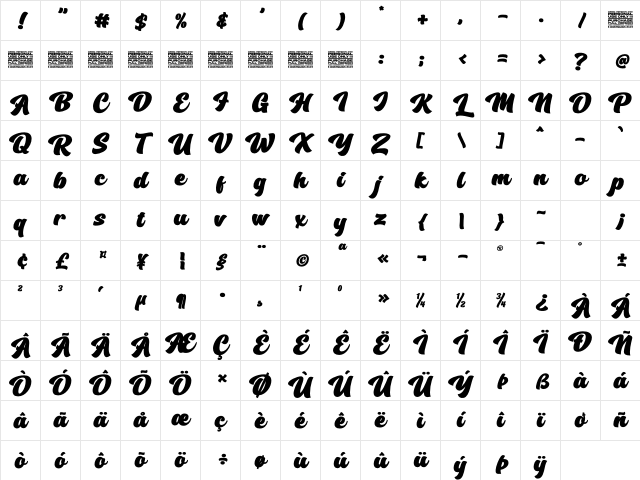
Complete Kings Hutand Personal Use Only Bold glyph index. Displaying only characters natively supported by Kings Hutand Personal Use Only Bold font.
Kings Hutand Personal Use Only is a composed and adaptable typeface that performs quietly and consistently across a wide range of design contexts. Its bold stroke weight gives it real presence on the page.